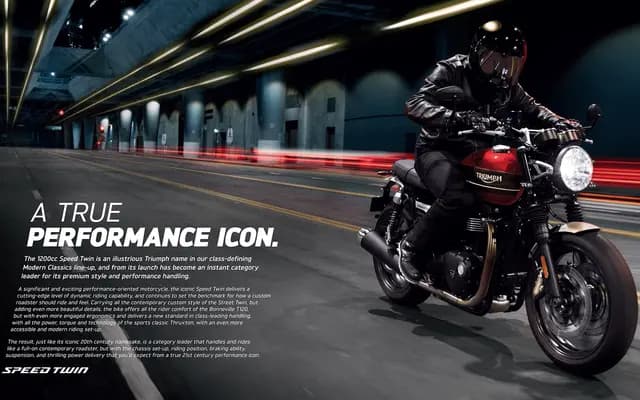
A seven-weight geometric sans with squarish proportions, open apertures and a large x-height, aimed at brand and digital applications.
Squarish forms are softened by subtle rounding, giving Brokman a modulated texture that holds up in longer text as well as display settings. Seven weights run from Thin to Bold, each with a true italic, across 430 characters with manually edited kerning and OpenType features. Noted use on Triumph Motorcycles suggests a natural fit for brand identities, broadcast and gaming contexts.
Squarish proportions with subtle rounding and open apertures place Brokman in the geometric sans tradition, though its large x-height and fluid texture give it a contemporary, humanist-inflected quality.